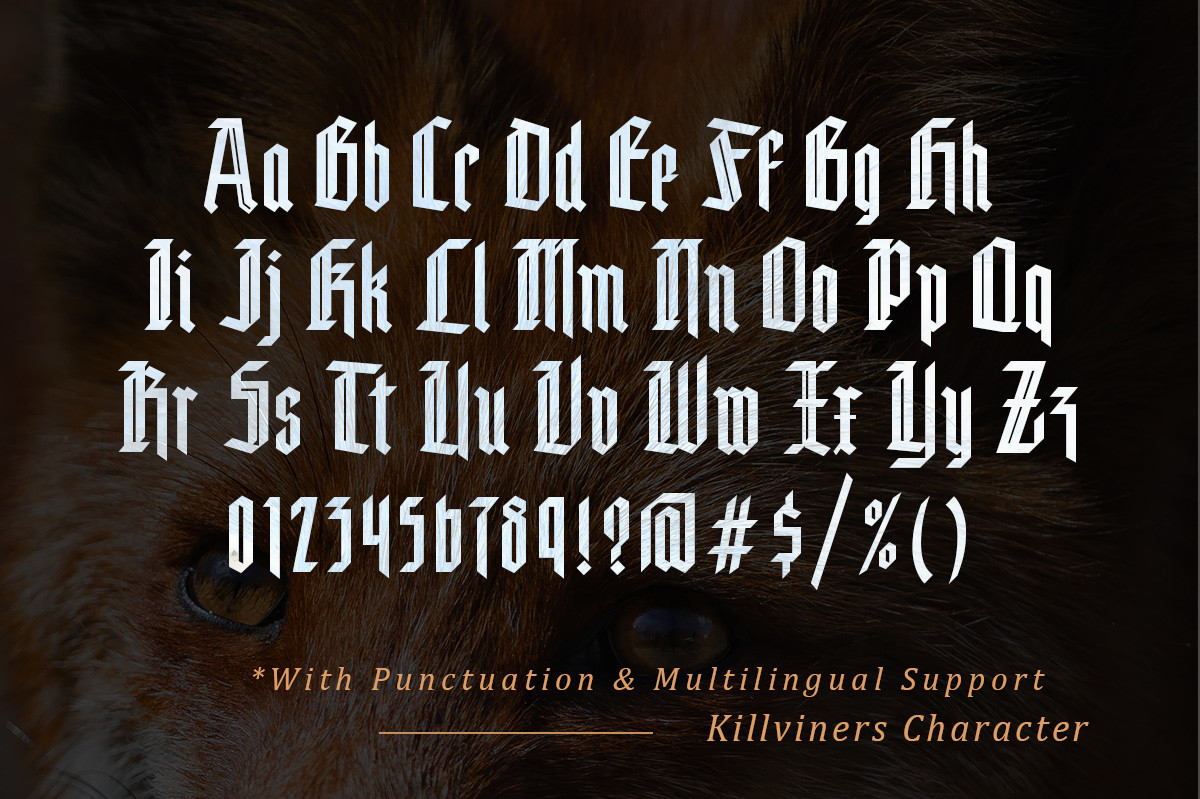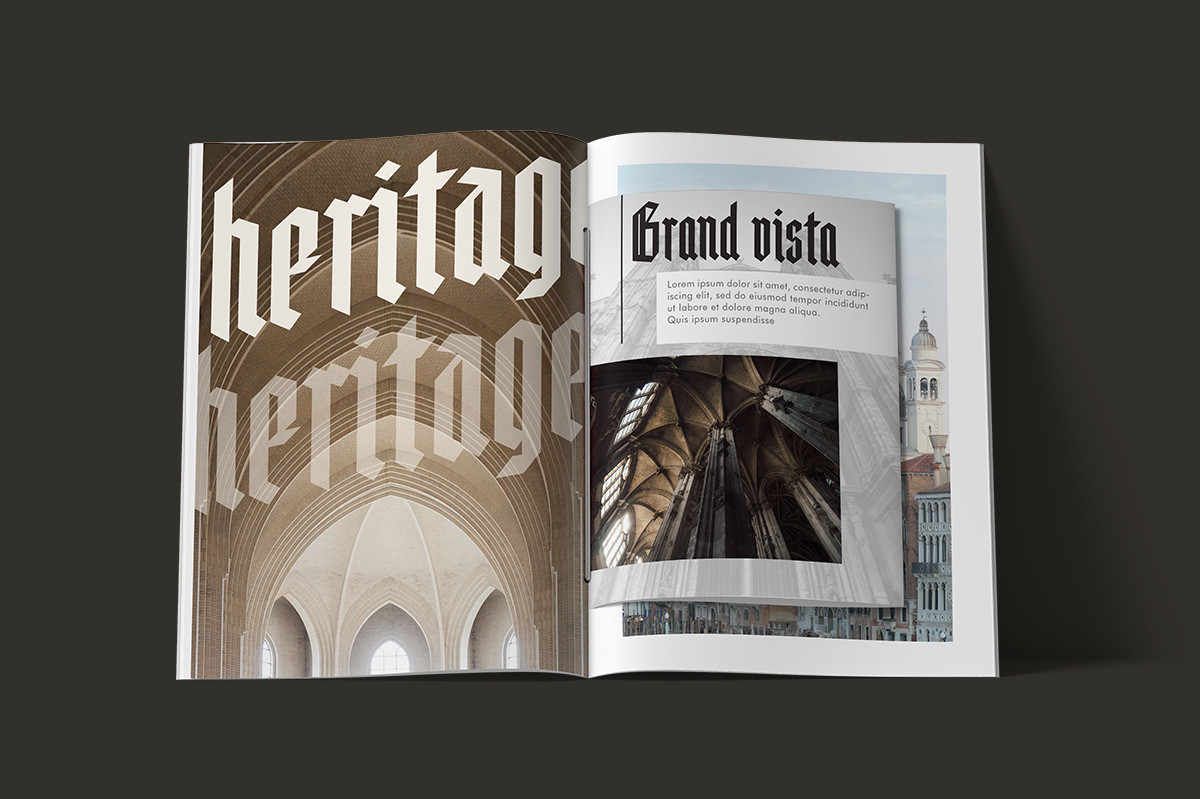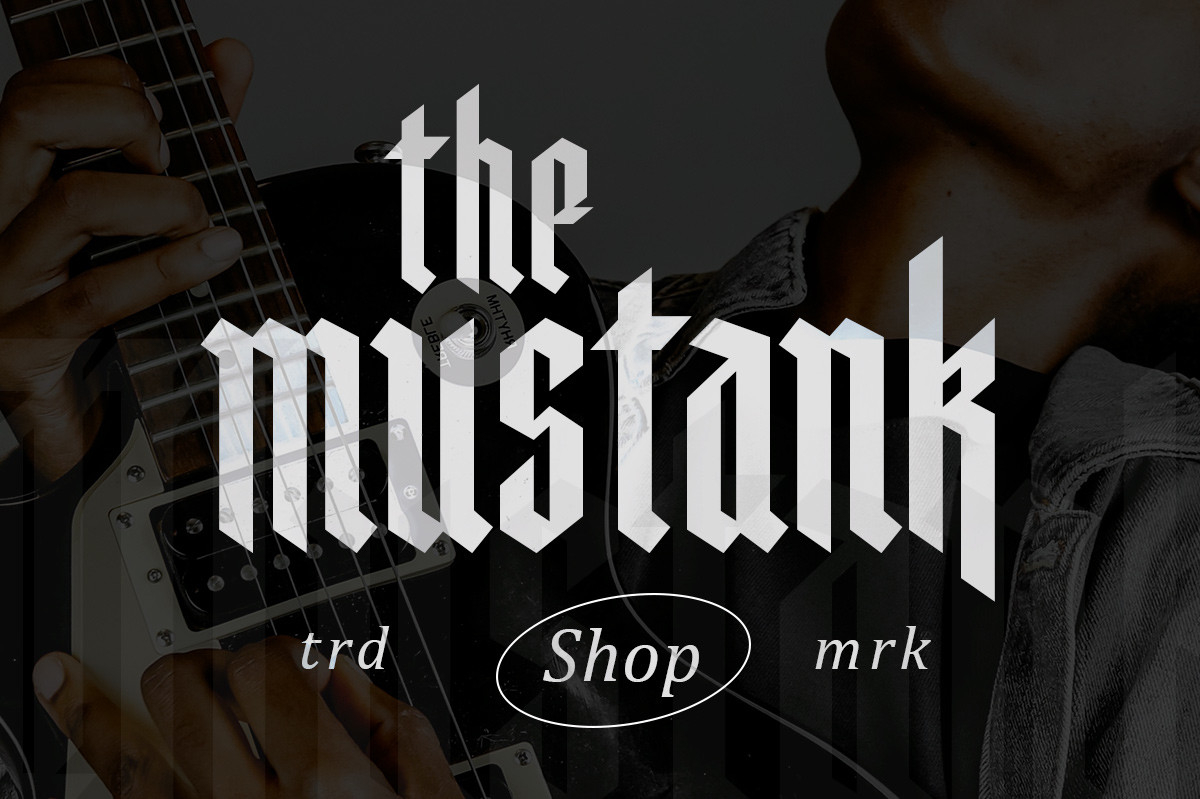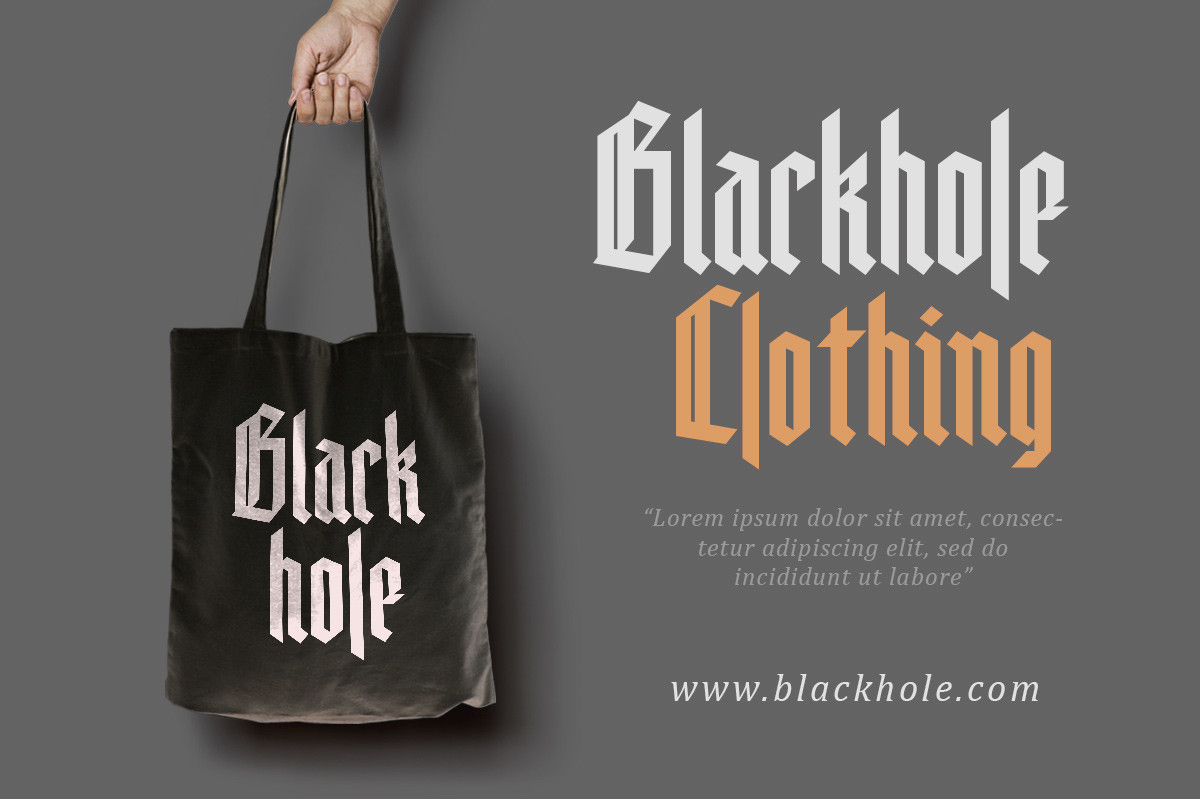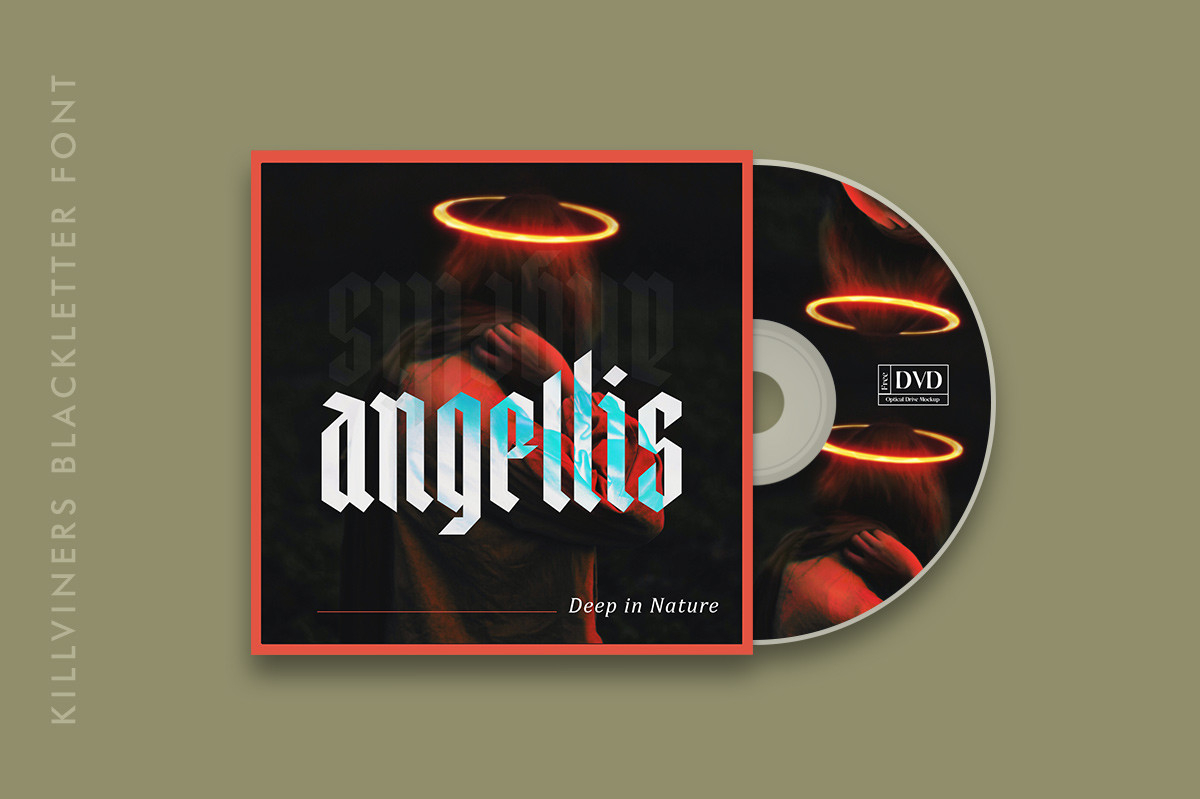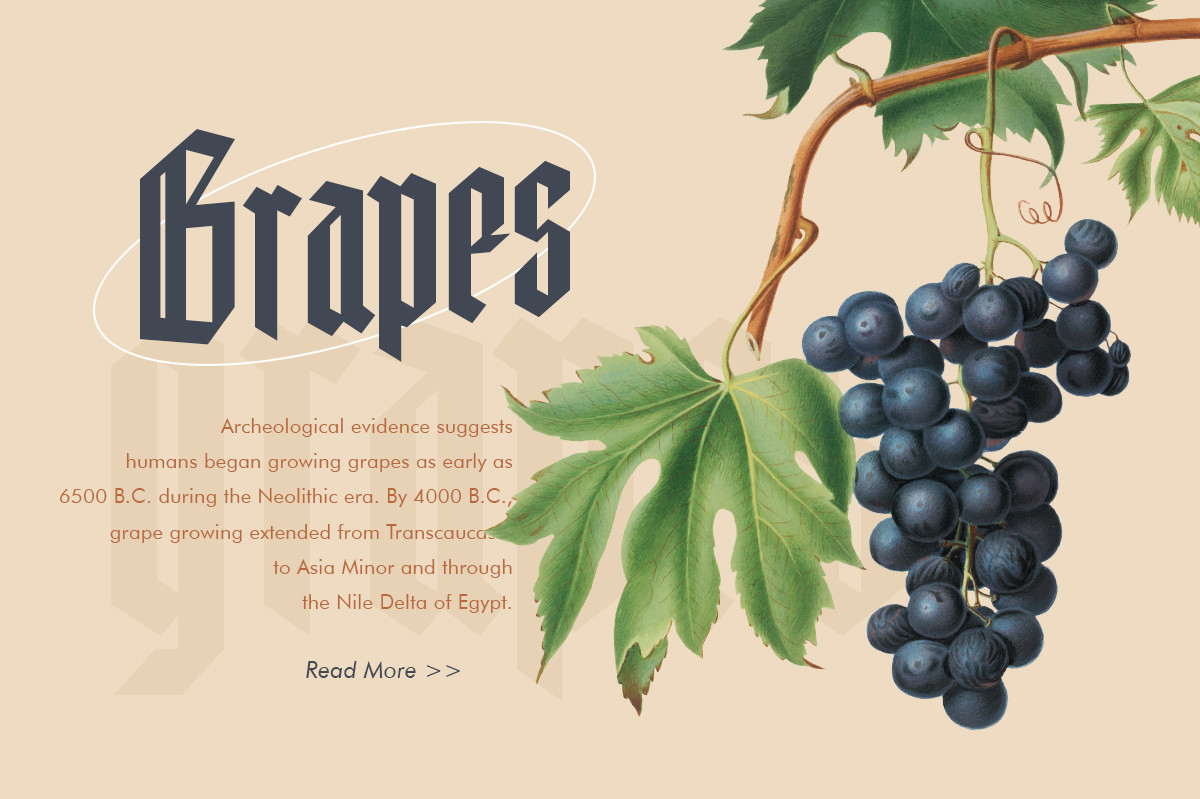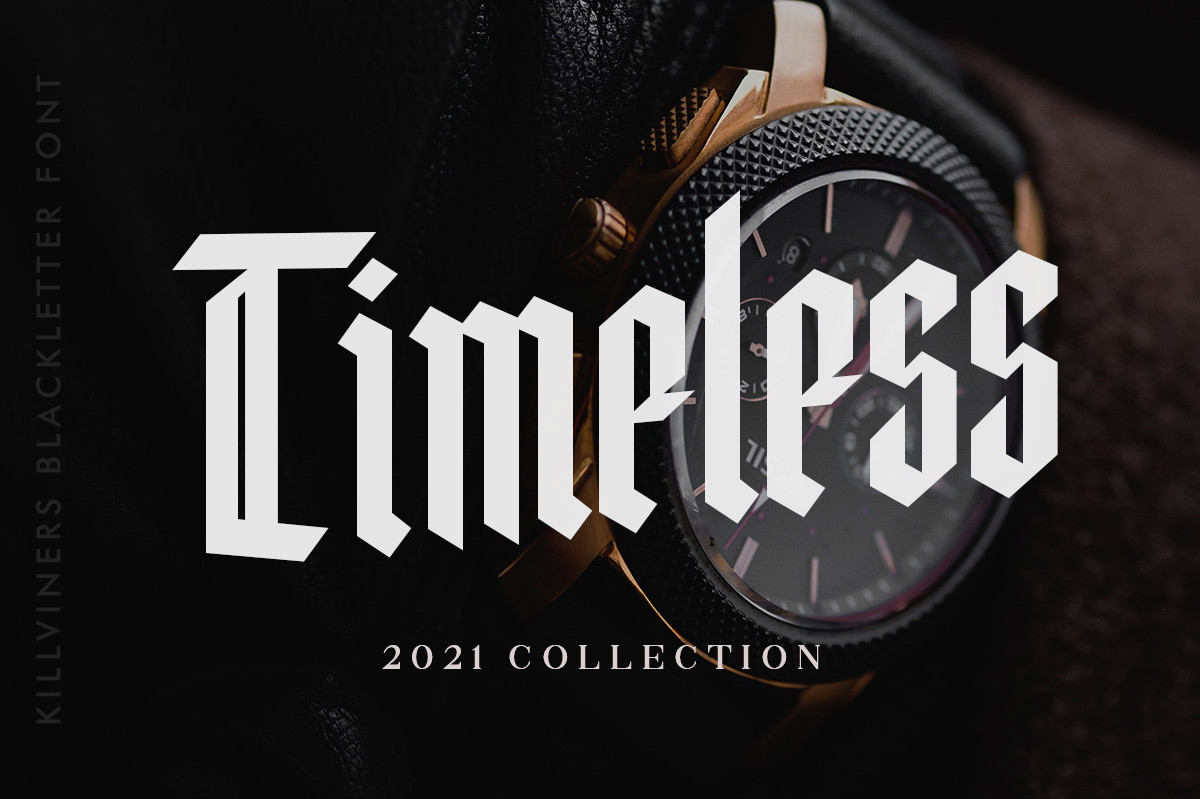
Killviners Font
About Killviners Font
Killviners is a modern blackletter font featuring a gothic vibe and a stylish flair! It is suitable for any creation that needs a bold accent, and it can transform any idea into a true piece of art!